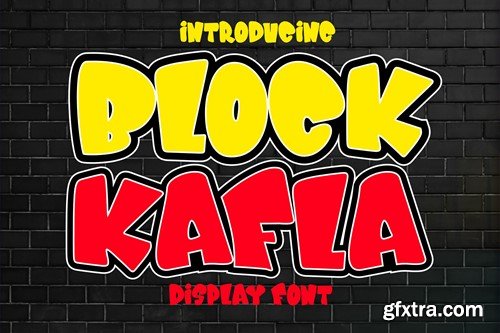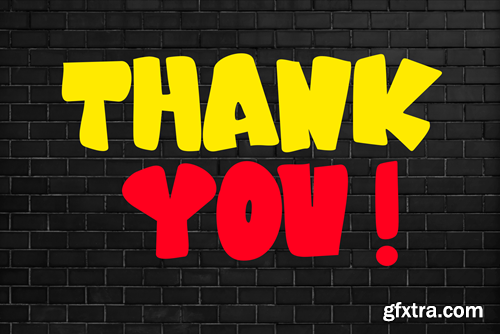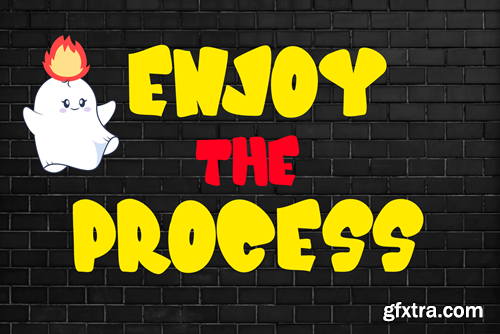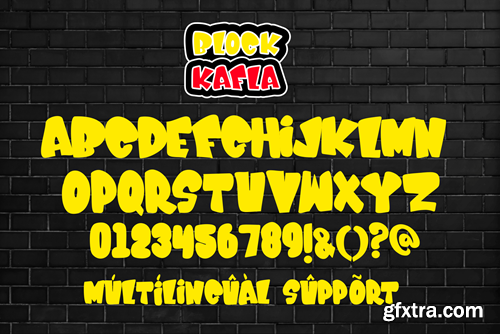
Block Kafla - Bold Cartoon Font
Block Kafla is a vibrant and playful cartoon display font that instantly captures the essence of fun and whimsy. Its bold, blocky lettering brings a lighthearted and animated feel to your designs, making it perfect for children's books, comic strips, and any project that requires a touch of joviality. With Block Kafla, your text takes on a charismatic and charming personality that's sure to make your audience smile. File Included: Features: That's it! If you have any questions don't hesitate to ask! Stay Classy!